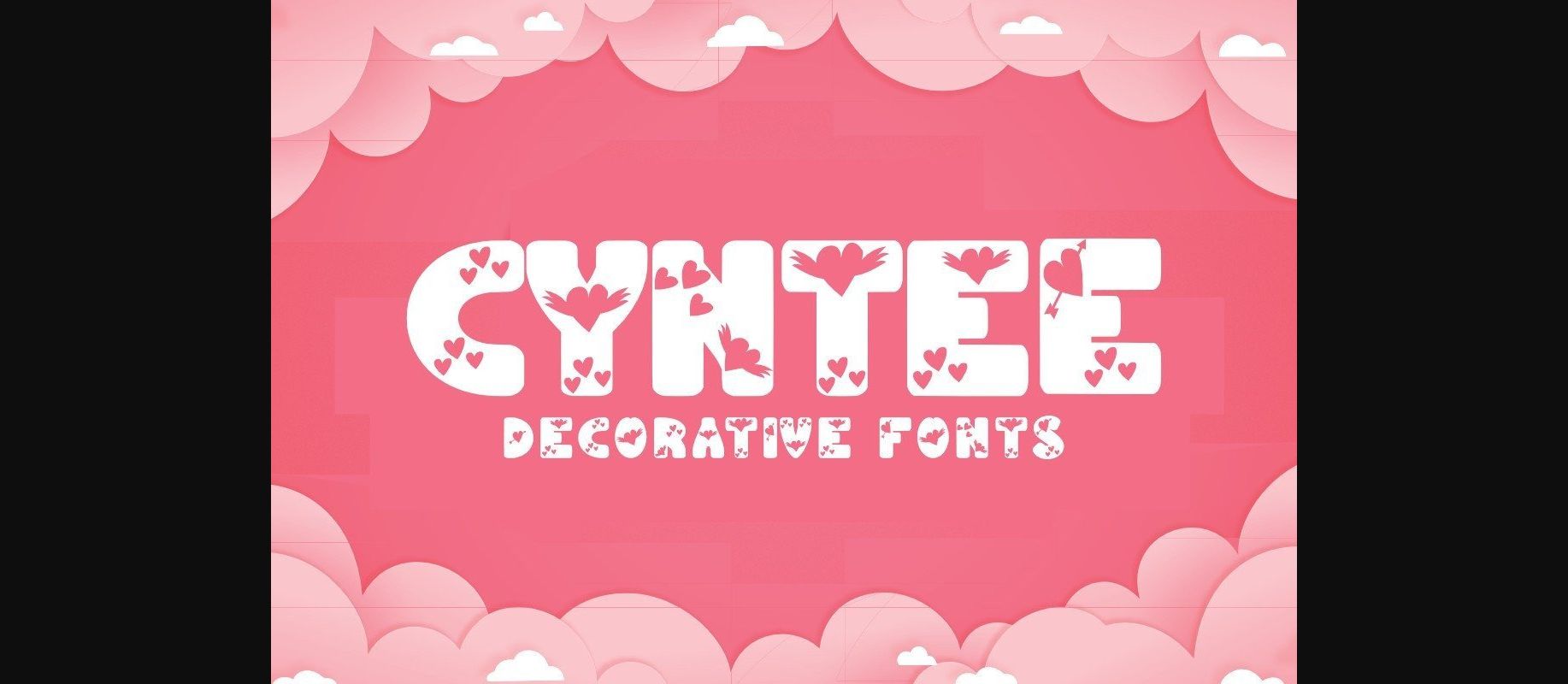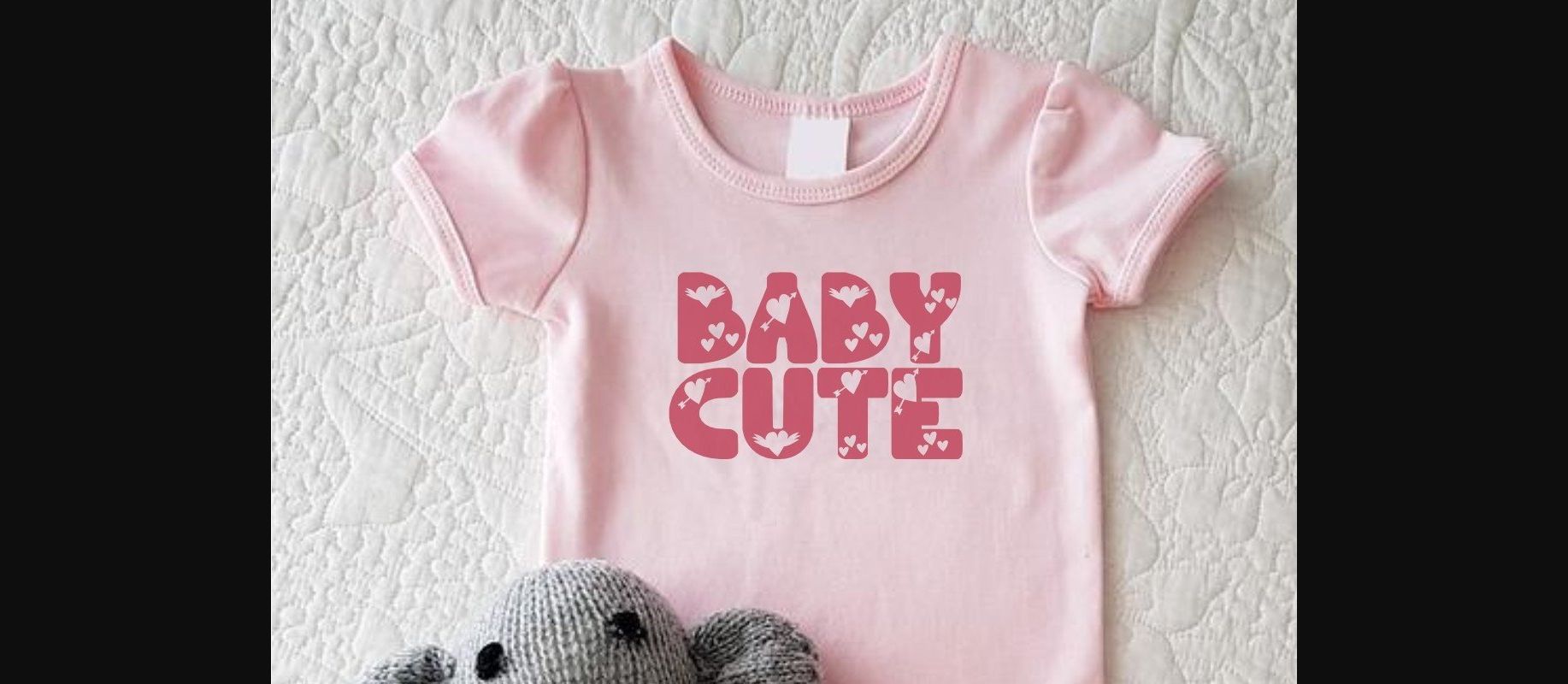
About Cyntee Font
Cyntee is a new decorative font with a Romantic Valentine theme. This font is perfect for t-shirts, posters, flyers, parties, tote bags, mugs, and other creative ideas.